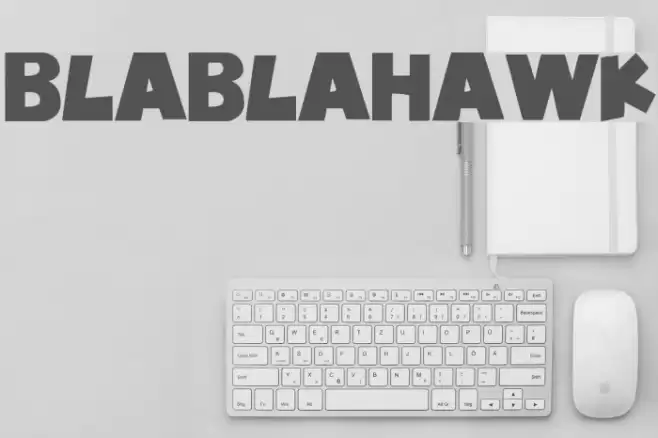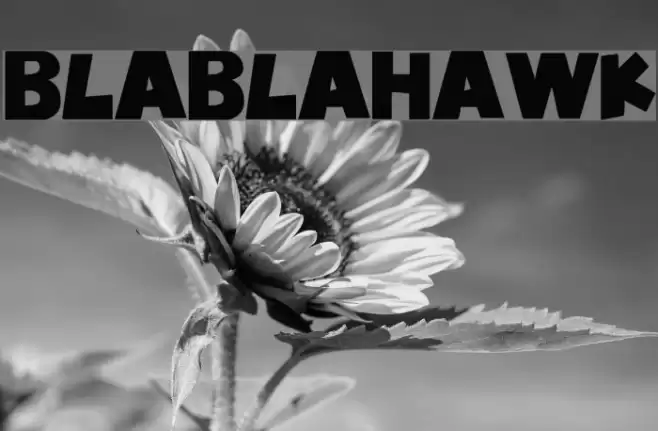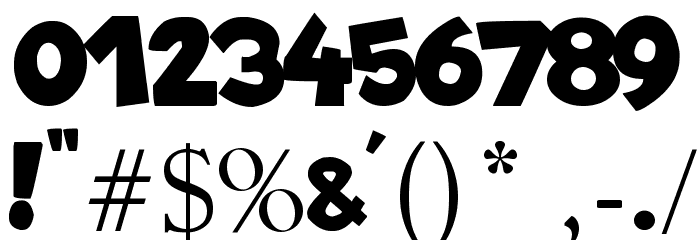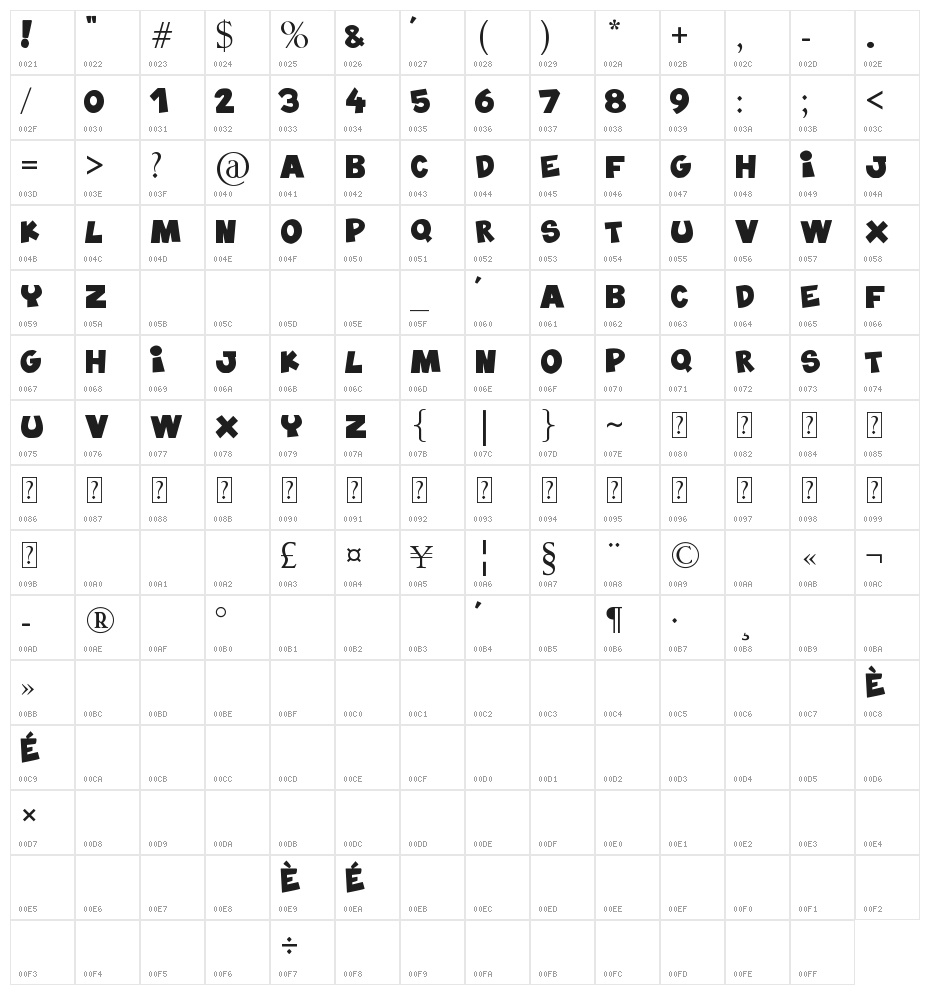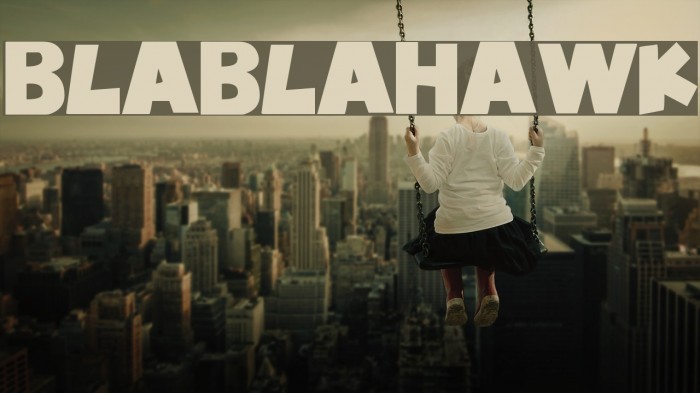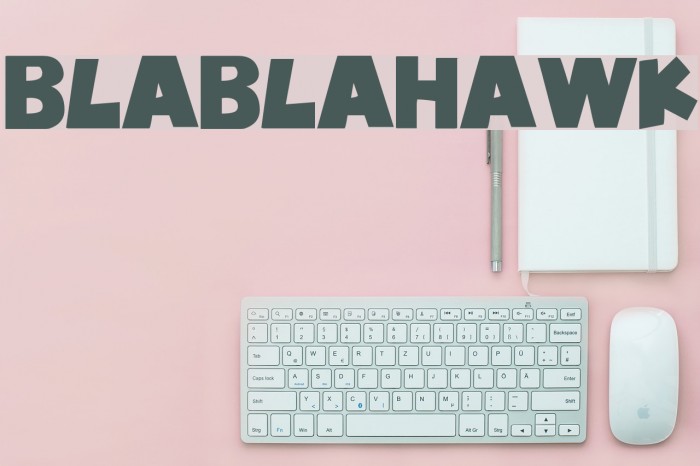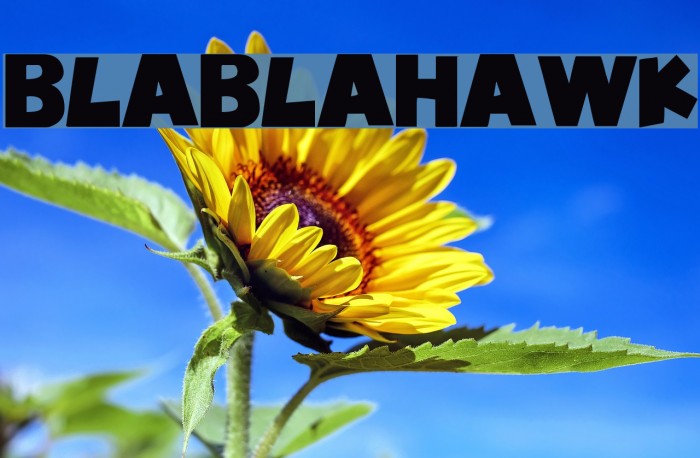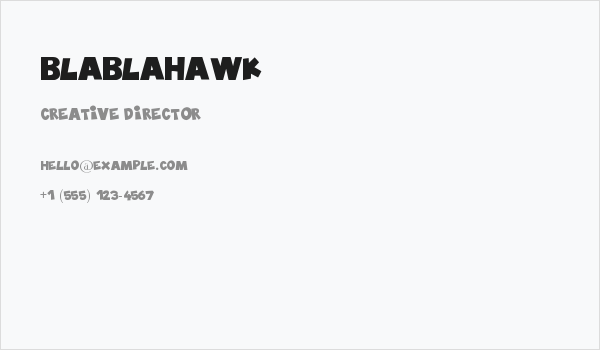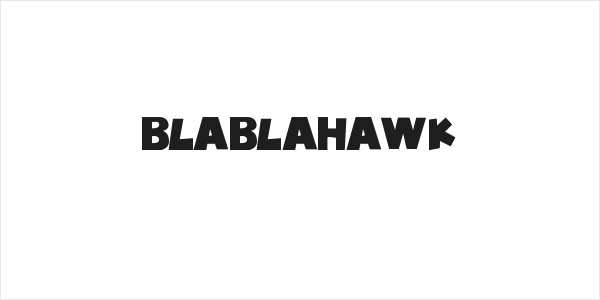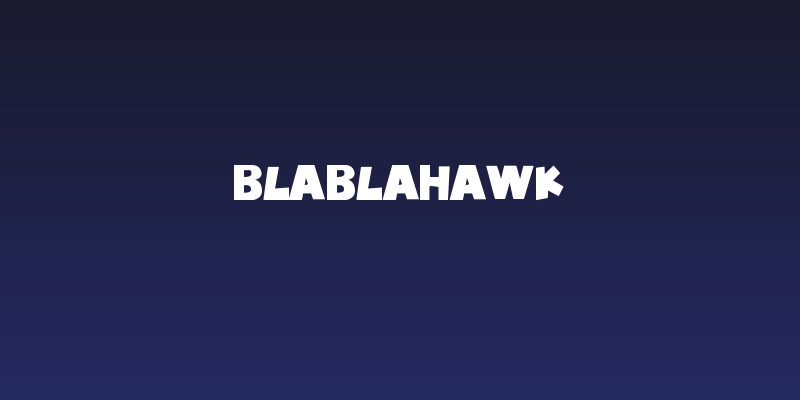
BlablaHawk Font
BlablaHawk Description
This font features a bold and playful design with exaggerated, chunky letterforms that convey a sense of fun and energy. The characters are highly stylized, with a mix of sharp angles and rounded edges, giving them a unique, cartoonish appearance. The uppercase and lowercase letters maintain a consistent style, while the numbers and special characters complement the overall aesthetic. The font's boldness makes it stand out, making it ideal for attention-grabbing designs.
A bold, playful font with chunky, cartoonish letterforms from Cartoon fonts.
- Proposed Projects: Ideal for children's books, comic strips, playful branding, and eye-catching posters.
- Overall Style: Playful, Cartoonish